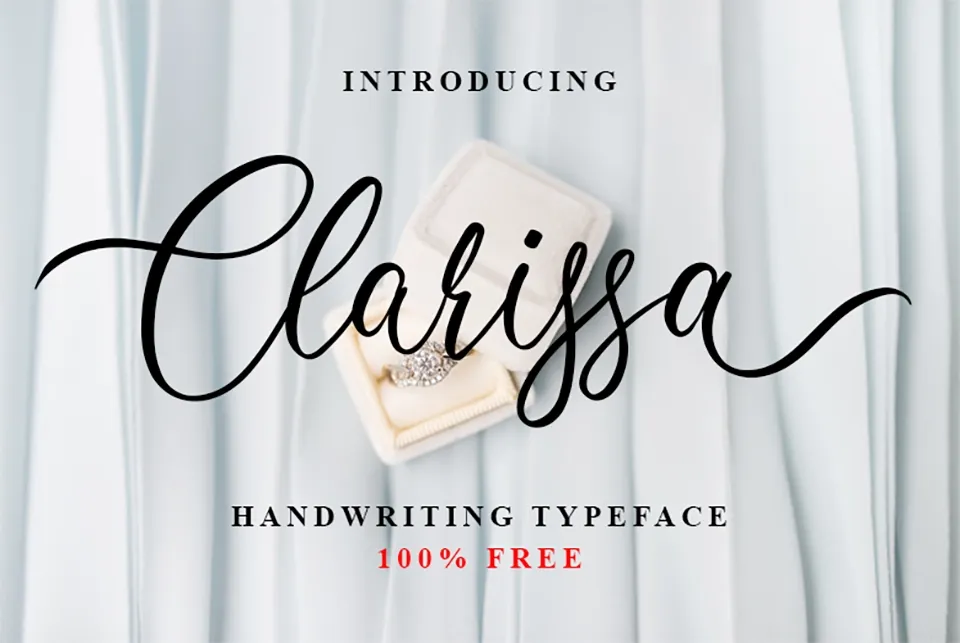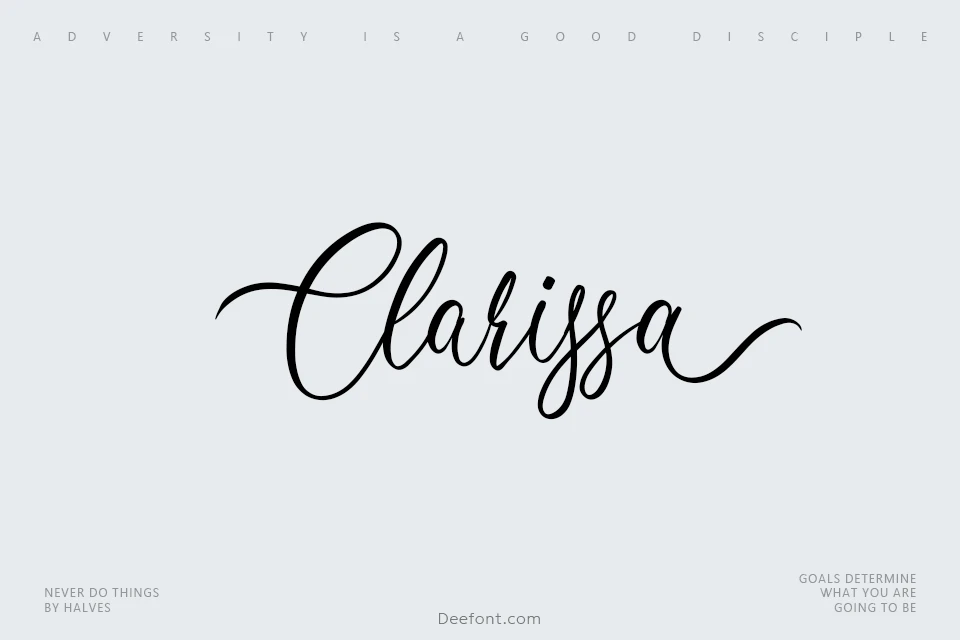
Clarissa Font
Clarissa Font is a beautifully crafted handwriting typeface that exudes elegance and charm. Its flowing, script-style letterforms make it perfect for wedding invitations, greeting cards, branding, and social media graphics. Clarissa’s graceful curves and natural strokes create a personal, sophisticated touch, ensuring your text stands out with warmth and style. The font is easy to install and compatible with both PC and Mac, making it accessible for a wide range of creative projects. Whether used for formal occasions or everyday designs, Clarissa Font adds a sense of refinement and individuality to any layout.